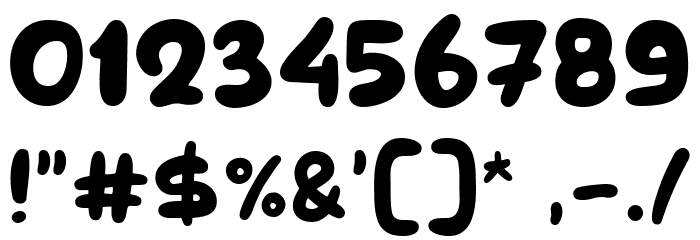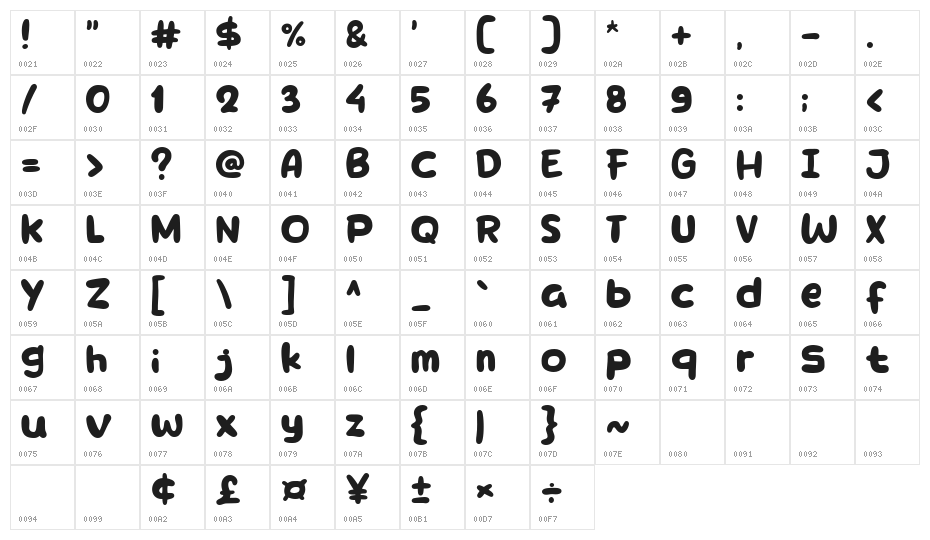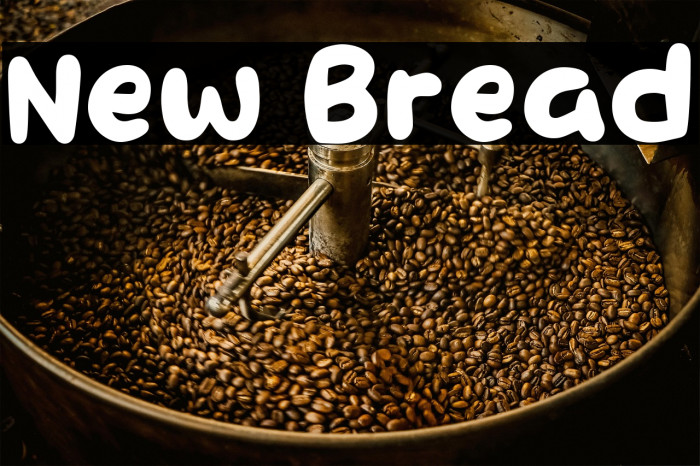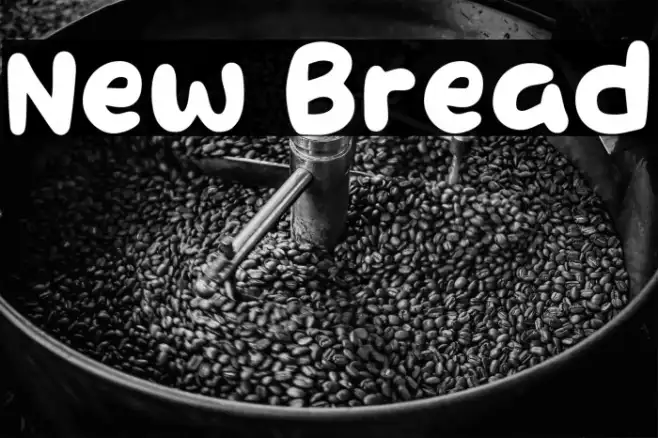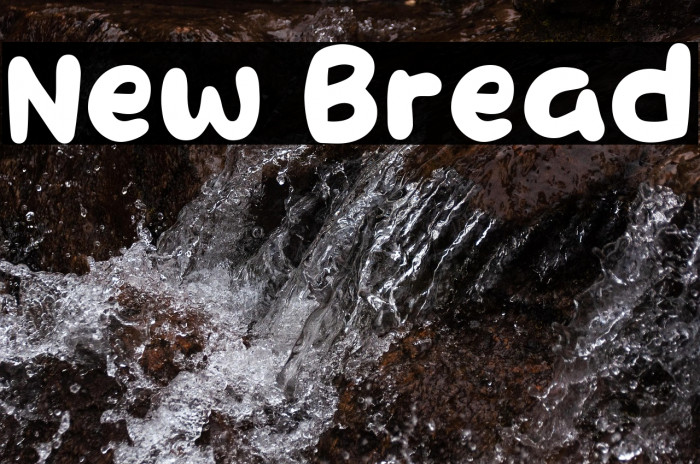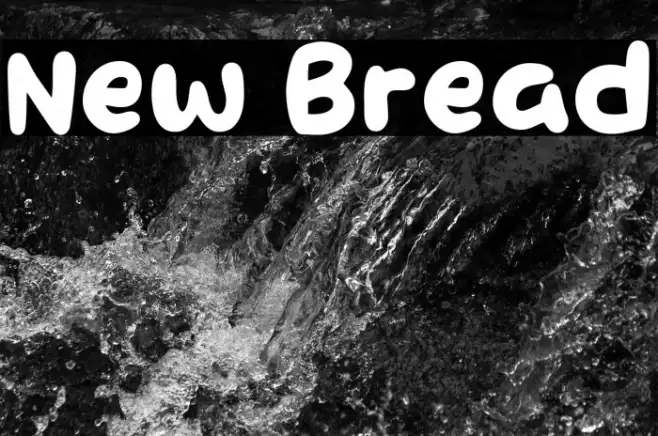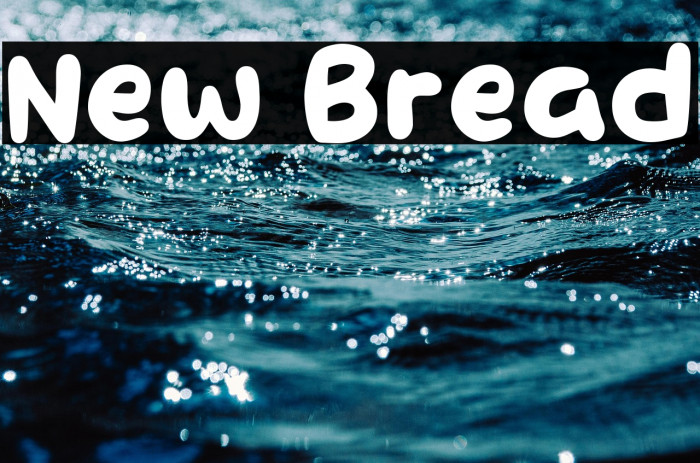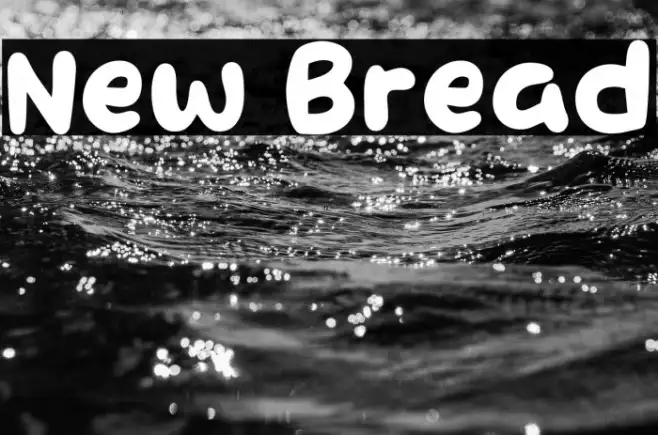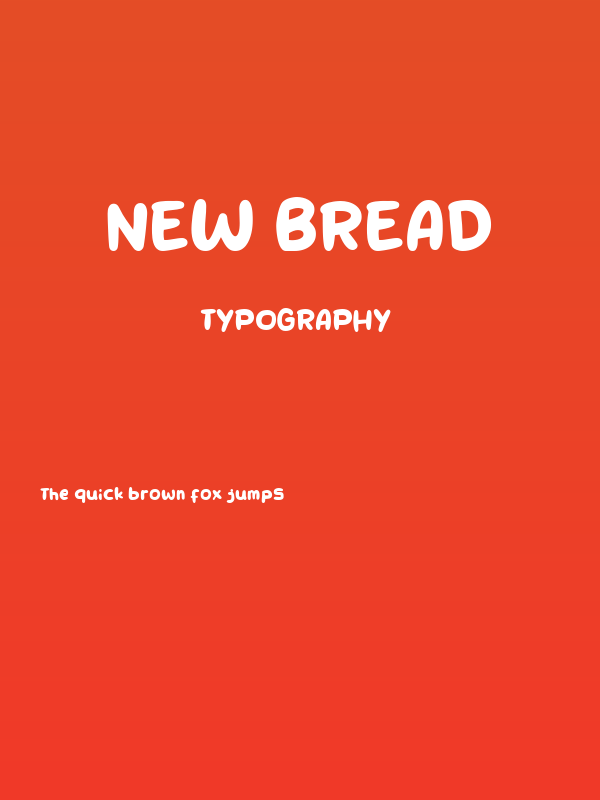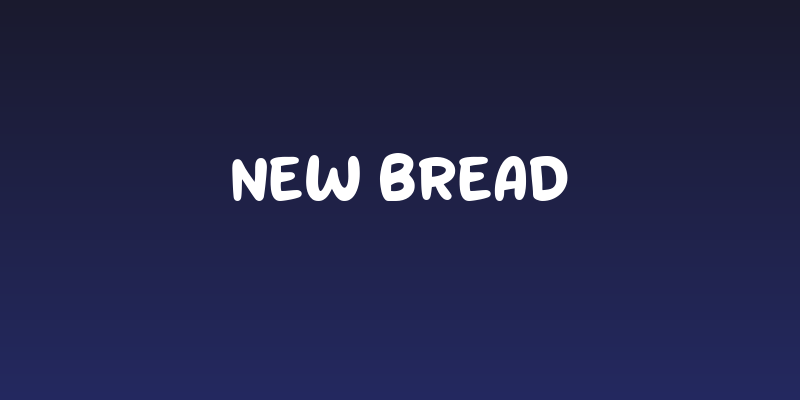
New Bread Font
New Bread Description
This playful and bold font features rounded, bubbly characters that exude a sense of fun and approachability. The letters are thick and have a consistent stroke width, giving them a uniform appearance. The overall style is casual and friendly, making it ideal for projects that require a touch of whimsy. The font includes a full set of uppercase and lowercase letters, numbers, and a variety of special characters, ensuring versatility in design applications. Its smooth curves and lack of sharp edges contribute to its inviting and informal aesthetic.
| Proposed Projects | Ideal for children's books, playful branding, casual invitations, and fun social media graphics. |